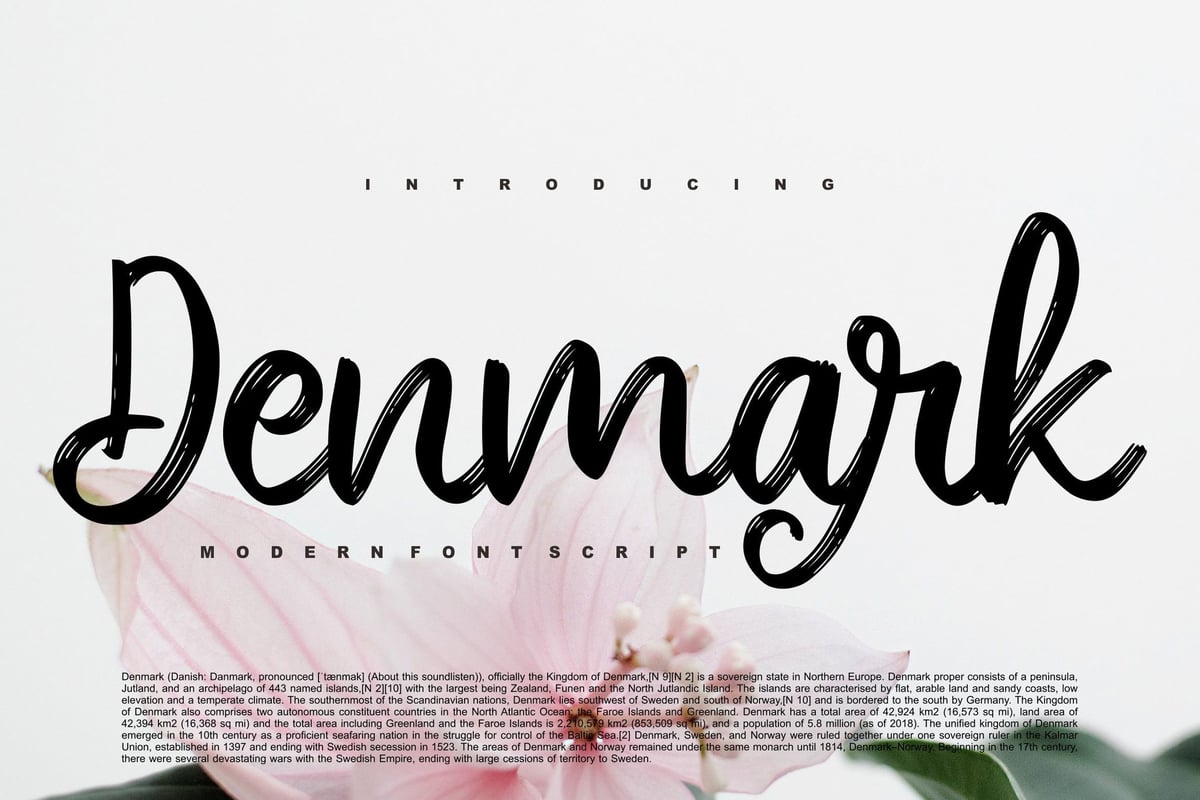
Free Denmark - Modern Brush Font Script
A bold, expressive brush script that brings handcrafted elegance to every design project.
Denmark is a modern brush font with a rich calligraphy style, crafted to make an impression on invitations, greeting cards, branding materials, business cards, quotes, posters, and more. Its natural brushstroke character gives designs a warm, authentic feel that's both stylish and versatile.
The typeface includes a robust set of OpenType features, giving you creative flexibility with alternate characters organized across:
- Stylistic Sets
- Stylistic Alternates
- Contextual Alternates
- Swash characters
- Ligatures